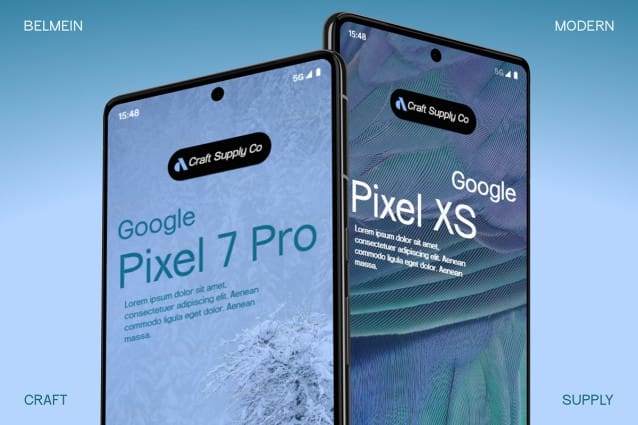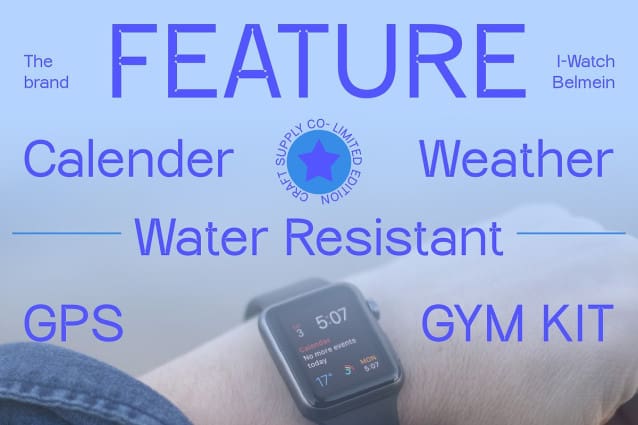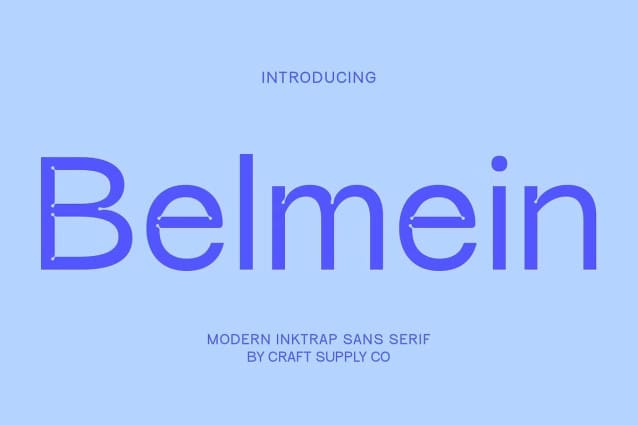
Belmein Font
Belmein Font: Modern Grotesk with Circular Inktrap. Contemporary Elegance with Circular Inktrap Belmein Font boasts a modern grotesk sans serif style with unique circular inktrap details. Its sleek and elegant design adds a contemporary touch to any project.
Versatile for Display and Corporate Needs Suitable for both display purposes and formal corporate settings, This font offers versatility in its application. Whether for eye-catching headlines or professional documents, this font delivers.
Smooth and Readable Design The circular inktraps in This font enhance its readability by maintaining smooth edges, even at smaller sizes. This ensures clarity and legibility across various platforms and media.
Perfect Balance of Modernity and Formality With its modern grotesk style and circular inktrap details, This font strikes the perfect balance between modernity and formality. It exudes professionalism while maintaining a contemporary aesthetic.
Elegant Modern Grotesk This font is a sleek and versatile font that combines modern grotesk design with circular inktrap details. Ideal for both display and formal purposes, it offers readability, elegance, and a touch of contemporary flair to any project.